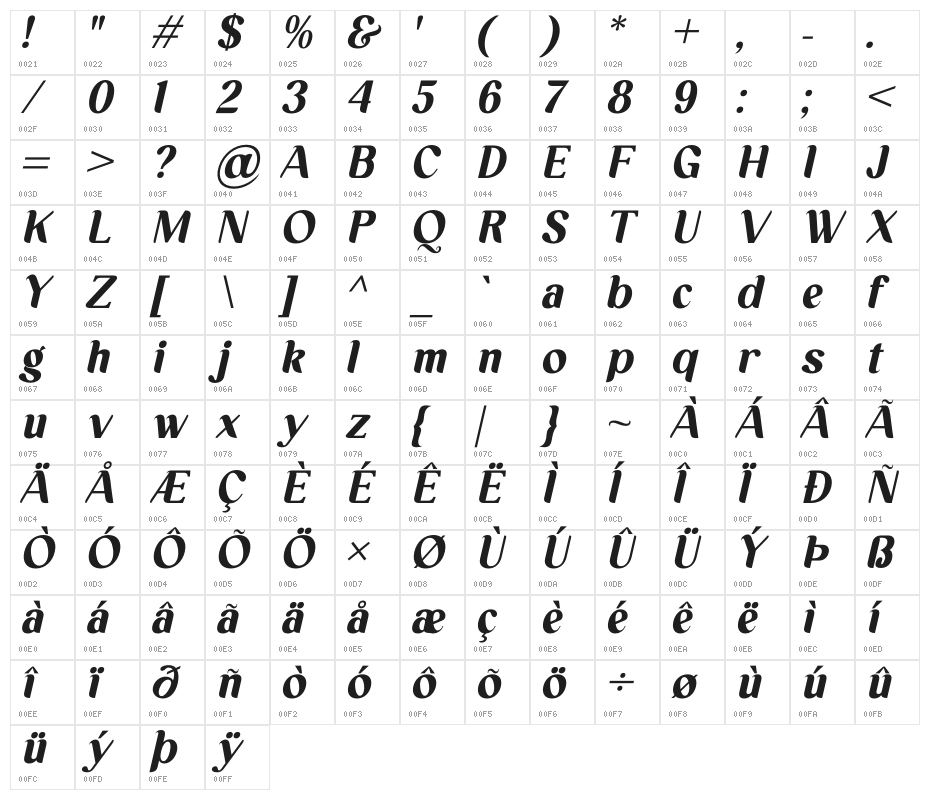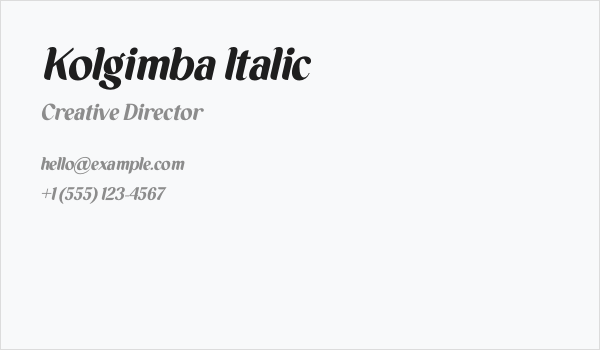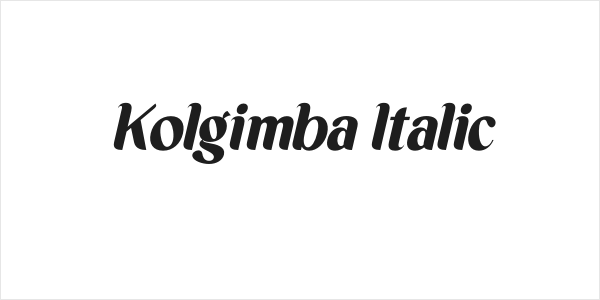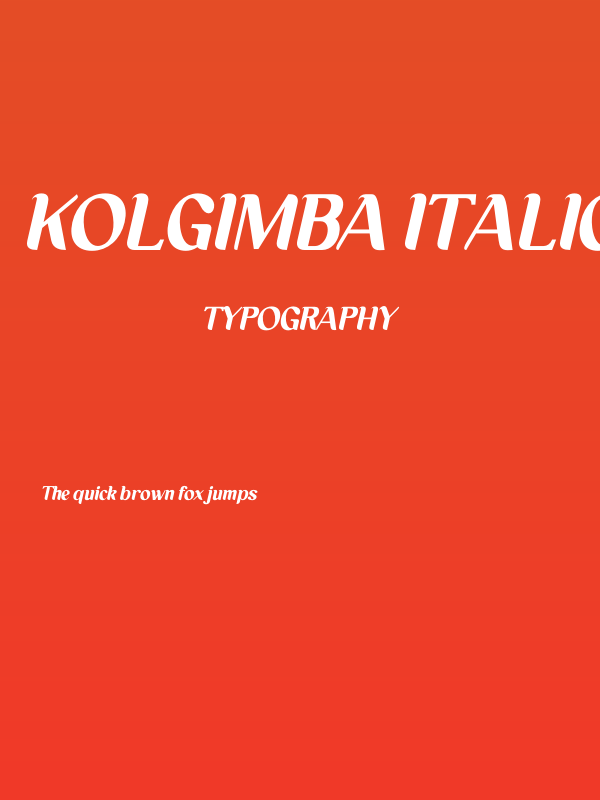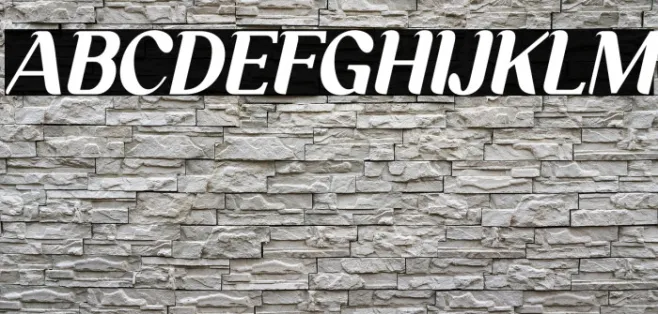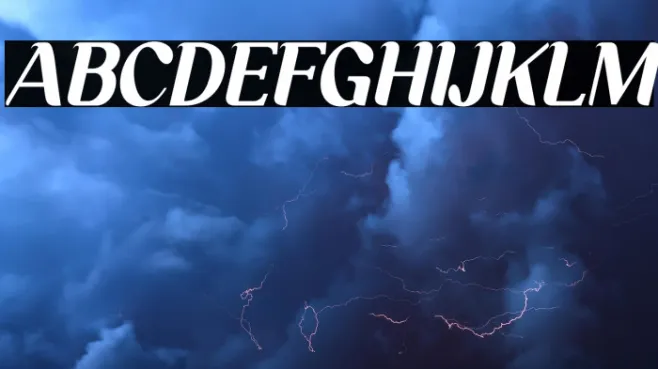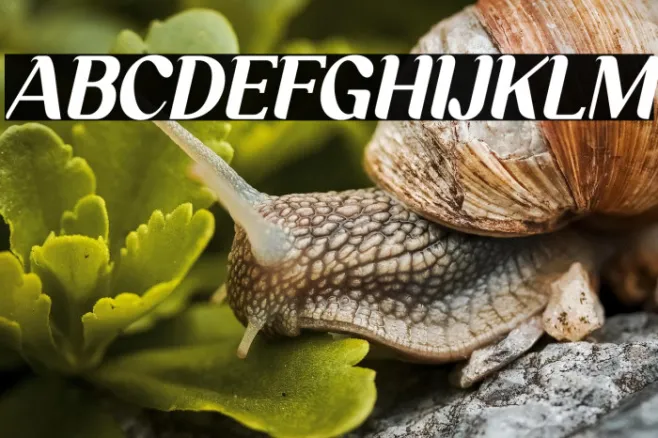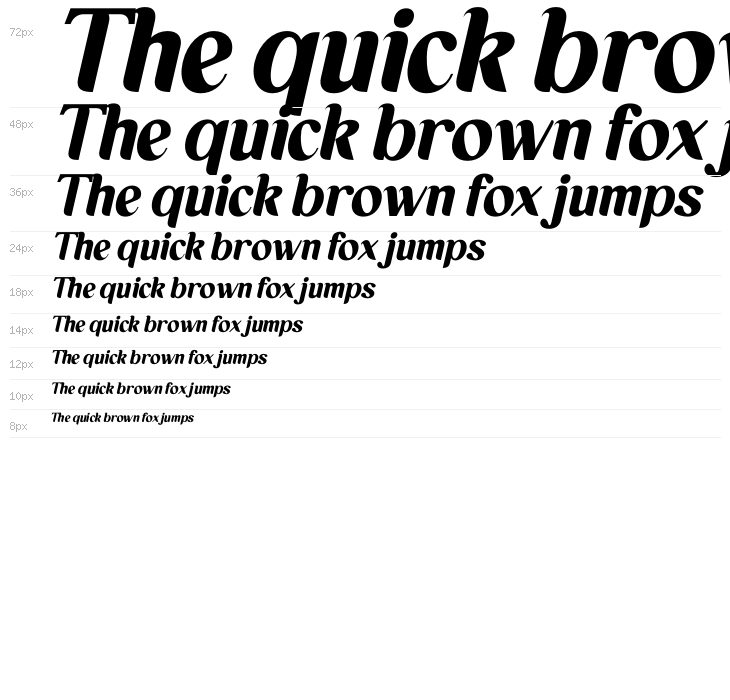
Kolgimba Italic Font
Kolgimba Italic Description
This font features a dynamic and elegant italic style, characterized by its smooth, flowing curves and slightly condensed letterforms. The uppercase letters exhibit a sophisticated slant, enhancing the overall graceful appearance. Lowercase letters maintain a consistent style, with rounded edges and a slight forward tilt, contributing to the font's fluidity. The numerals are bold and well-defined, ensuring readability while maintaining the font's aesthetic. Special characters are thoughtfully designed, complementing the overall style with their balanced proportions and distinctive flair.
| Use Case | Headlines, Logos, Editorial design |
| Proposed Projects | Ideal for branding projects, elegant invitations, editorial design, and stylish advertising campaigns. |